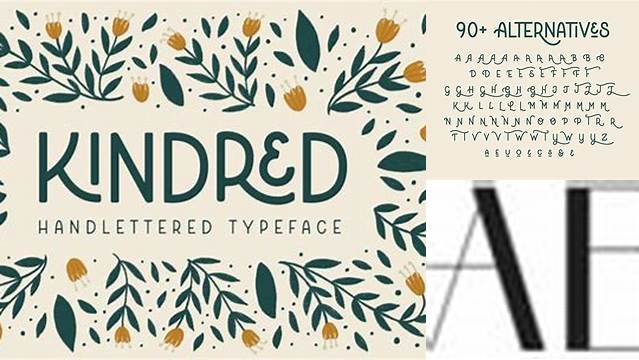
Kindred Bold Font: Free Download Guide
Are you in search of the perfect font to elevate your design projects? Look no further! The Kindred Bold font is a versatile and stylish typeface that can add a touch of elegance and modernity to any project. Whether you're working on branding, web design, or print materials, Kindred Bold is an excellent choice. In this comprehensive guide, we'll delve into everything you need to know about Kindred Bold, including its features, uses, and, most importantly, where to find free downloads. So, let's get started, guys, and explore the world of Kindred Bold!
The Kindred Bold font has garnered significant attention in the design community due to its unique blend of contemporary aesthetics and classic readability. Its bold weight commands attention, making it ideal for headlines, titles, and any text that needs to stand out. But what exactly makes Kindred Bold so special? Is it the clean lines, the balanced letterforms, or the overall visual impact? The answer is a combination of all these factors. When you choose a font like Kindred Bold, you're not just selecting a set of characters; you're choosing a visual voice for your project. The right font can convey the intended message with clarity and style, enhancing the overall user experience and leaving a lasting impression. This is why understanding the nuances of typography and selecting the right font are crucial steps in any design process. In the following sections, we will explore the characteristics of Kindred Bold in detail and show you why it might just be the perfect font for your next project. We'll also tackle the all-important question of where to find it for free, ensuring you can access this fantastic resource without breaking the bank. So stick around, and let's dive deeper into the world of Kindred Bold.
So, what exactly is the Kindred Bold font? It's a modern sans-serif typeface known for its strong, confident appearance. Designed with clarity and impact in mind, Kindred Bold is perfect for projects that require a touch of sophistication and readability. Its clean lines and bold weight make it highly versatile, suitable for a wide range of applications from website headers to print advertisements. When we talk about typography, we often discuss the concept of visual hierarchy. Visual hierarchy is the arrangement of design elements in a way that implies importance. Kindred Bold excels in creating a strong visual hierarchy, ensuring that the most important text commands attention. For instance, using Kindred Bold for headlines and subheadings can immediately draw the reader's eye and guide them through the content. Its boldness makes it an excellent choice for call-to-action buttons, ensuring that users notice and interact with them. But it’s not just about being loud and attention-grabbing. Kindred Bold also boasts a subtle elegance that prevents it from appearing harsh or overwhelming. This balance between boldness and sophistication is what sets it apart from other sans-serif fonts.
Furthermore, the design of Kindred Bold reflects a keen understanding of contemporary design trends. It aligns with the minimalist aesthetic that is currently popular, making it a relevant choice for modern branding and digital interfaces. The spacing and kerning (the spacing between letters) have been carefully considered to ensure optimal readability, whether the font is displayed on a screen or printed on paper. This attention to detail is crucial because readability directly impacts the user experience. A font that is difficult to read can frustrate users and detract from the overall message. Kindred Bold avoids this pitfall by prioritizing clarity without sacrificing style. In essence, Kindred Bold is more than just a font; it's a design tool that can help you communicate effectively and create visually compelling content. In the next section, we will explore the various applications of Kindred Bold, demonstrating its versatility and highlighting how it can be used in different contexts. Whether you're a seasoned designer or just starting, understanding the capabilities of fonts like Kindred Bold is essential for creating impactful designs.
When we dive into the key features of Kindred Bold, a few things immediately stand out. Its bold weight is, of course, the most prominent characteristic, giving it a strong and assertive presence. This makes it ideal for headlines, logos, and any text that needs to grab attention. But it’s not just about being bold; it's also about being clear and legible. The letterforms in Kindred Bold are designed with precision, ensuring that each character is easily distinguishable. This is crucial for readability, especially in larger blocks of text or when the font is used at smaller sizes. Another noteworthy feature is its sans-serif design. Sans-serif fonts are known for their clean and modern appearance, lacking the small decorative strokes (serifs) found in traditional fonts like Times New Roman. This simplicity gives Kindred Bold a contemporary edge, making it a perfect fit for designs that aim to convey a sense of modernity and innovation. The absence of serifs also contributes to its readability, as the clean lines reduce visual clutter.
Beyond the basics, Kindred Bold exhibits several subtle characteristics that enhance its overall appeal. The proportions of the letters are carefully balanced, creating a harmonious and visually pleasing rhythm. The spacing between letters (kerning) and lines (leading) has been meticulously adjusted to optimize readability. These subtle details might not be immediately noticeable to the casual observer, but they play a significant role in the overall impact of the font. Furthermore, Kindred Bold often includes a comprehensive character set, encompassing not just the standard alphabet but also numerals, punctuation marks, and special symbols. This versatility makes it suitable for a wide range of applications, from branding and advertising to web design and print materials. When evaluating a font, it’s important to consider not just its aesthetic qualities but also its functional aspects. Does it work well in different sizes? Is it legible on various backgrounds? Does it offer the necessary characters for your project? Kindred Bold ticks all these boxes, making it a reliable and versatile choice for designers. In the upcoming sections, we will explore specific use cases for Kindred Bold, illustrating how these features translate into practical design applications. Whether you're designing a website, creating a logo, or crafting a marketing campaign, understanding the characteristics of Kindred Bold will help you leverage its full potential.
The versatility of the Kindred Bold font shines through when we consider its many uses and applications. This font is a true workhorse, capable of adapting to a wide range of design needs. One of its most common applications is in branding. A strong, legible font like Kindred Bold can make a significant impact on a company's visual identity. It can be used for logos, taglines, and marketing materials, helping to create a consistent and memorable brand image. Imagine a sleek, modern logo using Kindred Bold; it conveys professionalism and confidence, exactly the qualities a brand might want to project. In the realm of web design, Kindred Bold is equally valuable. Its clean lines and excellent readability make it an ideal choice for website headers, navigation menus, and body text. A well-chosen font can significantly enhance the user experience on a website, making it easier for visitors to read and engage with the content. Using Kindred Bold can help create a visually appealing and user-friendly online presence.
Furthermore, Kindred Bold is often employed in print materials, such as brochures, posters, and advertisements. Its boldness ensures that text stands out, even in a crowded visual environment. This is particularly important for headlines and call-to-action elements, where the goal is to grab the reader's attention and encourage them to take action. In the publishing industry, Kindred Bold can be used for book covers, chapter titles, and headings, adding a touch of sophistication to the overall design. Its legibility also makes it a good choice for longer passages of text, ensuring a comfortable reading experience. Beyond these specific applications, Kindred Bold is also popular in infographics, presentations, and social media graphics. Its versatility allows designers to create visually compelling content across various platforms. Whether you’re designing a sleek presentation for a corporate meeting or crafting an eye-catching social media post, Kindred Bold can help you communicate your message effectively. In essence, the applications of Kindred Bold are limited only by your imagination. Its combination of boldness, clarity, and modern aesthetic makes it a valuable asset for any designer. In the next section, we will address the crucial question of where to find free downloads of Kindred Bold, ensuring you have access to this fantastic resource for your projects.